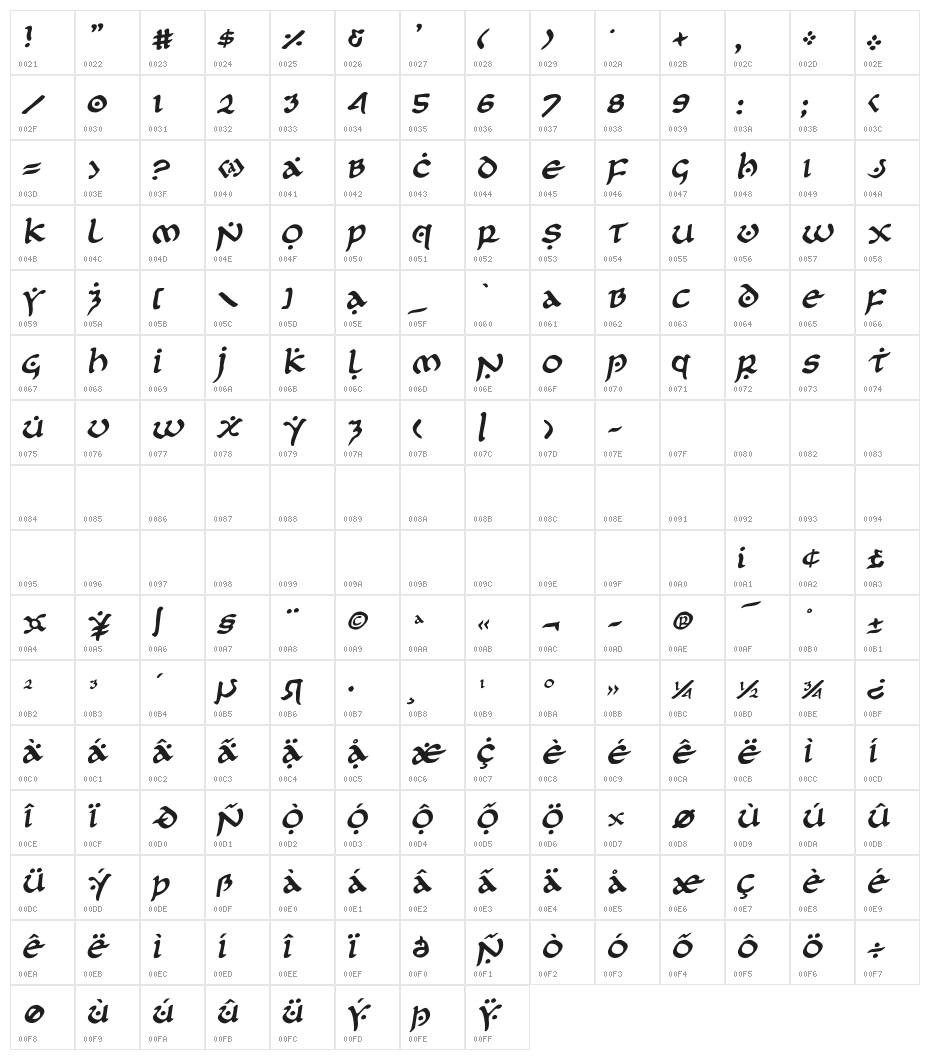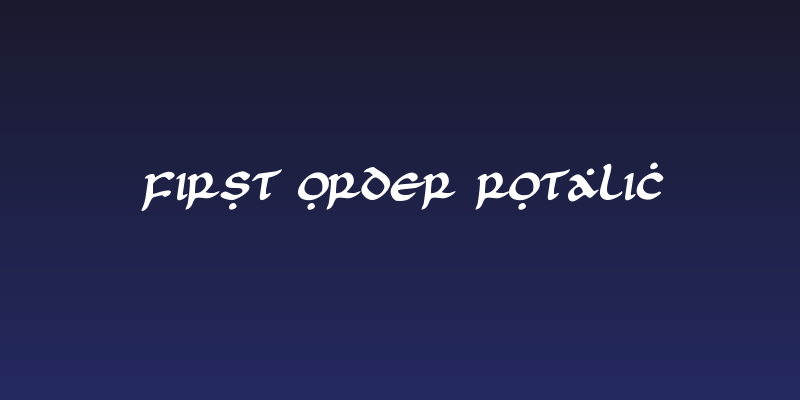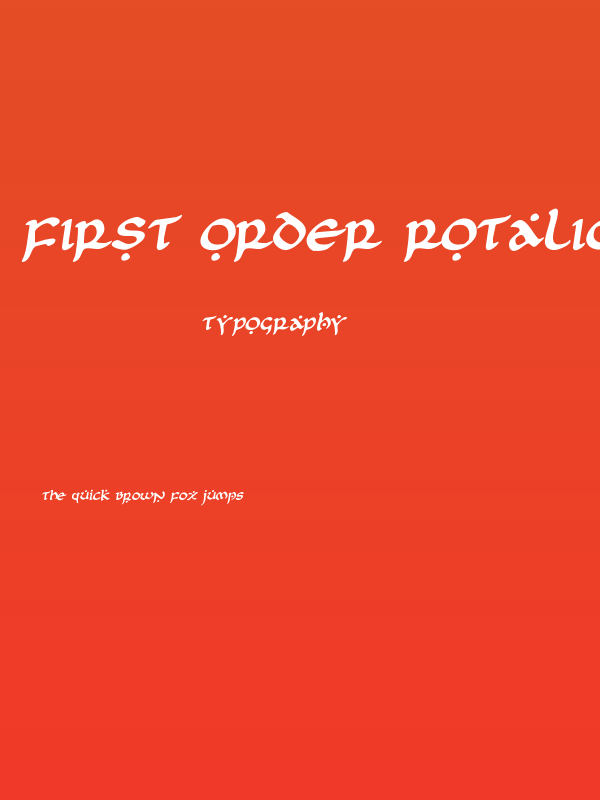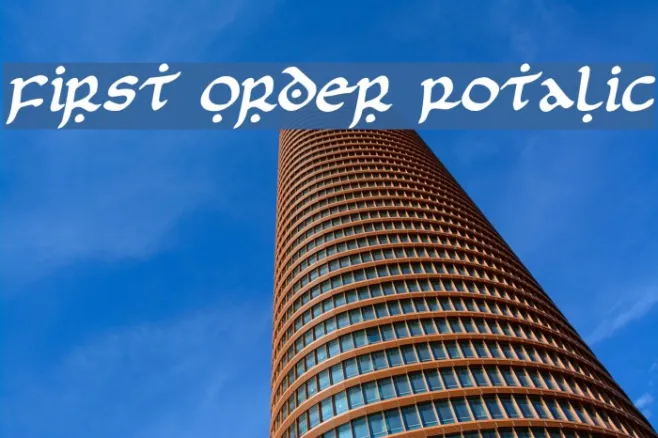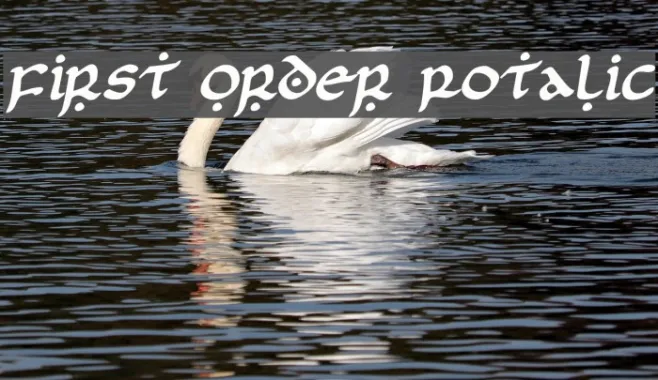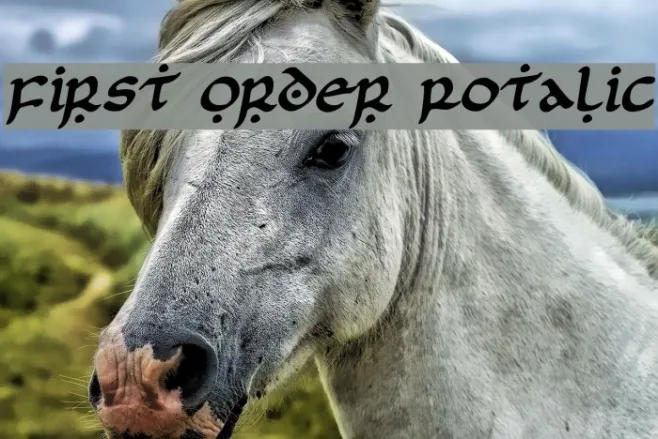
First Order Rotalic Font
First Order Rotalic Description
This font features a unique and artistic style, characterized by its flowing, cursive-like appearance. The letters have a distinct calligraphic influence, with elegant curves and a dynamic slant that gives a sense of movement. The uppercase and lowercase letters maintain a consistent style, with some characters having additional flourishes that enhance their visual appeal. The numerals are equally stylized, matching the overall aesthetic of the alphabet. Special characters are designed to complement the letterforms, ensuring a cohesive look across all glyphs. This font is ideal for projects that require a touch of elegance and creativity.